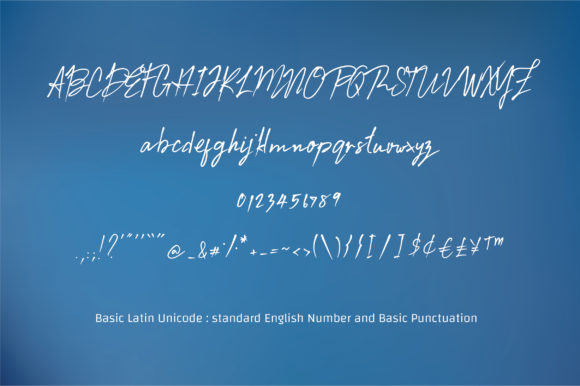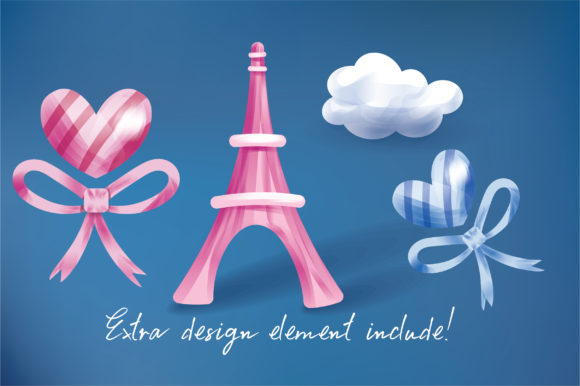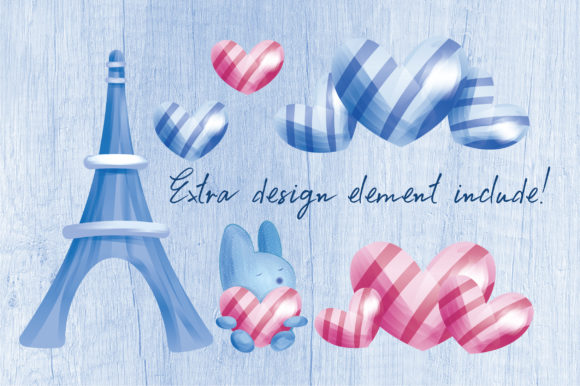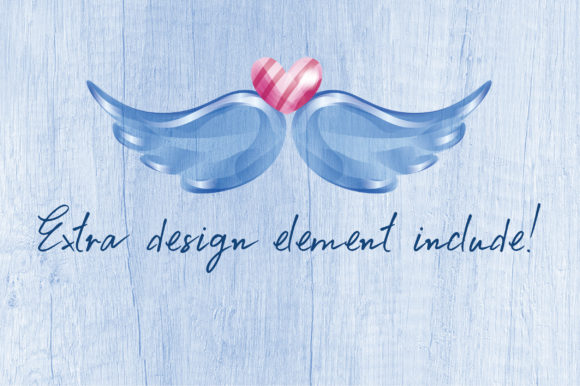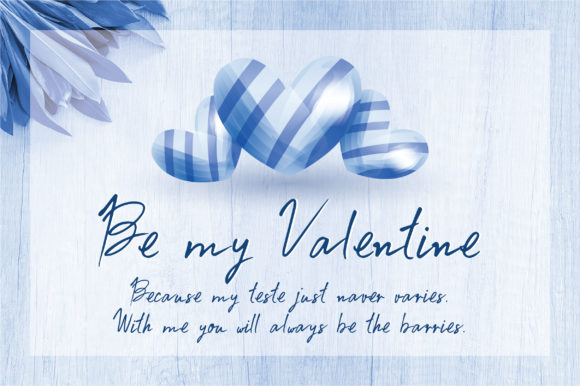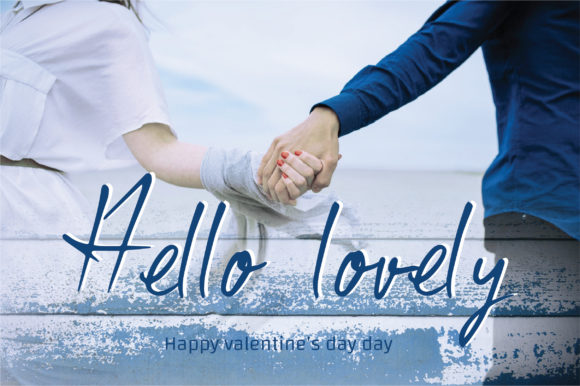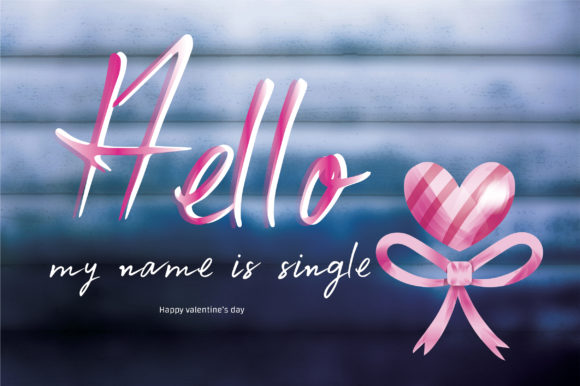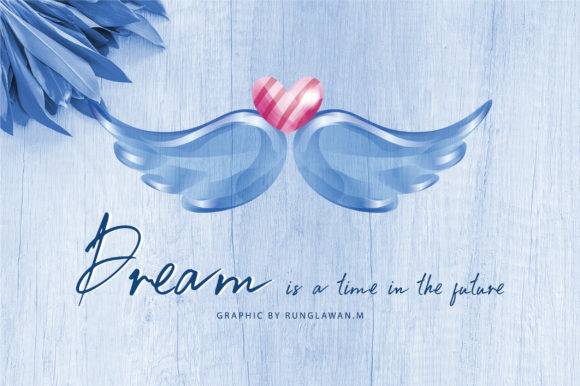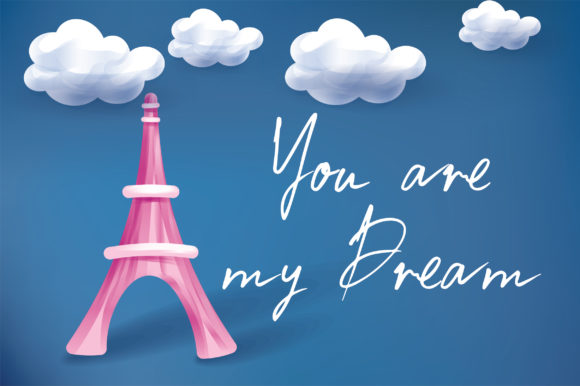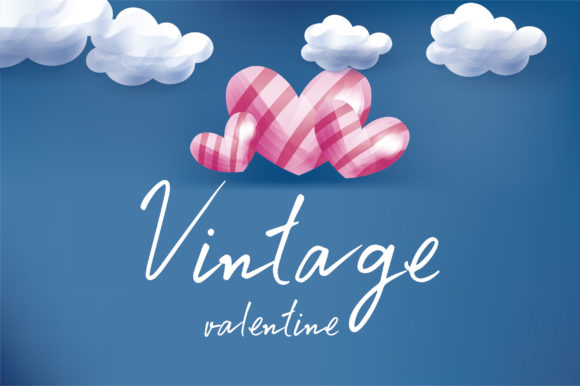
Classic Valentine Font
About Classic Valentine Font
Classic Valentine fuses classic calligraphy with a modern sensibility. This gorgeously unique script feels both light and romantic, making it a great addition to any crafter’s library!